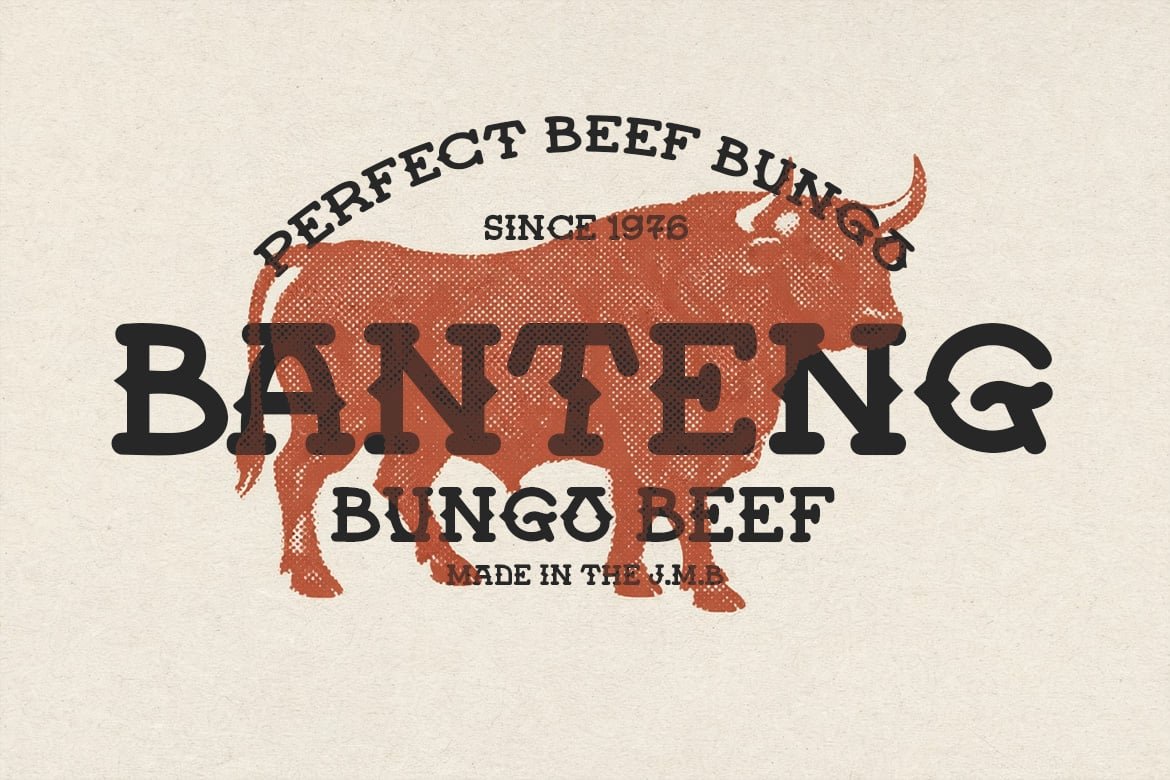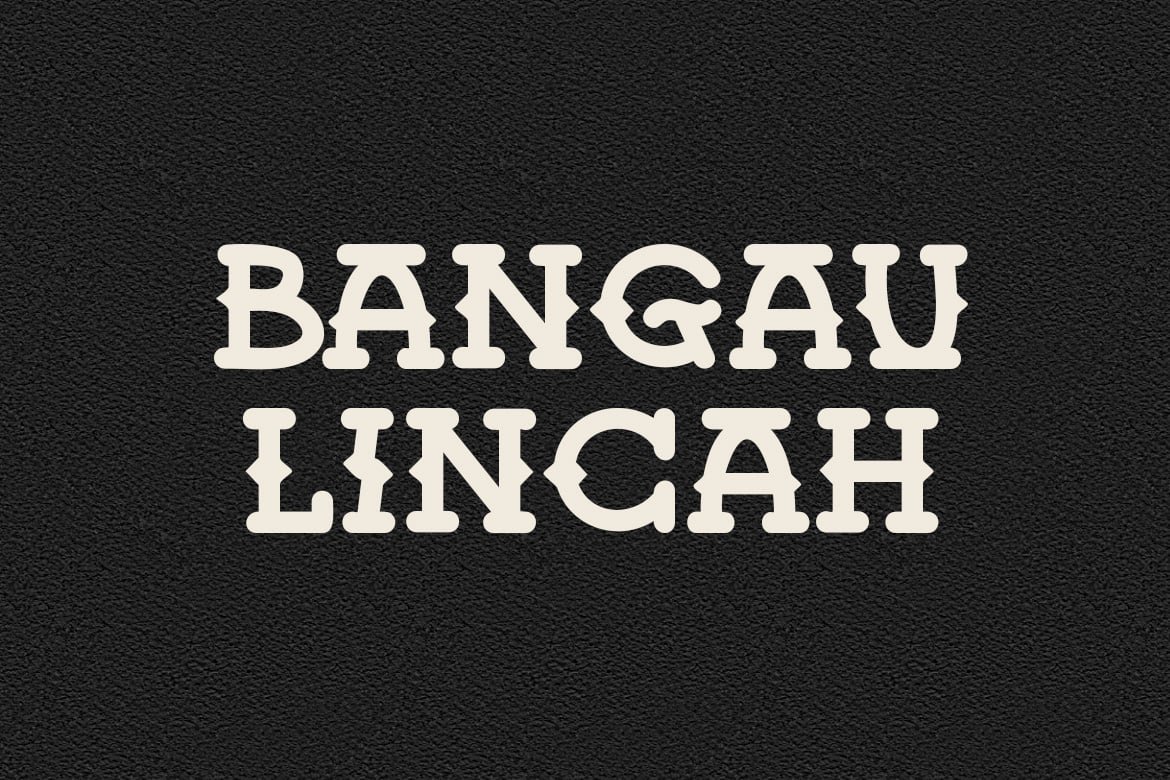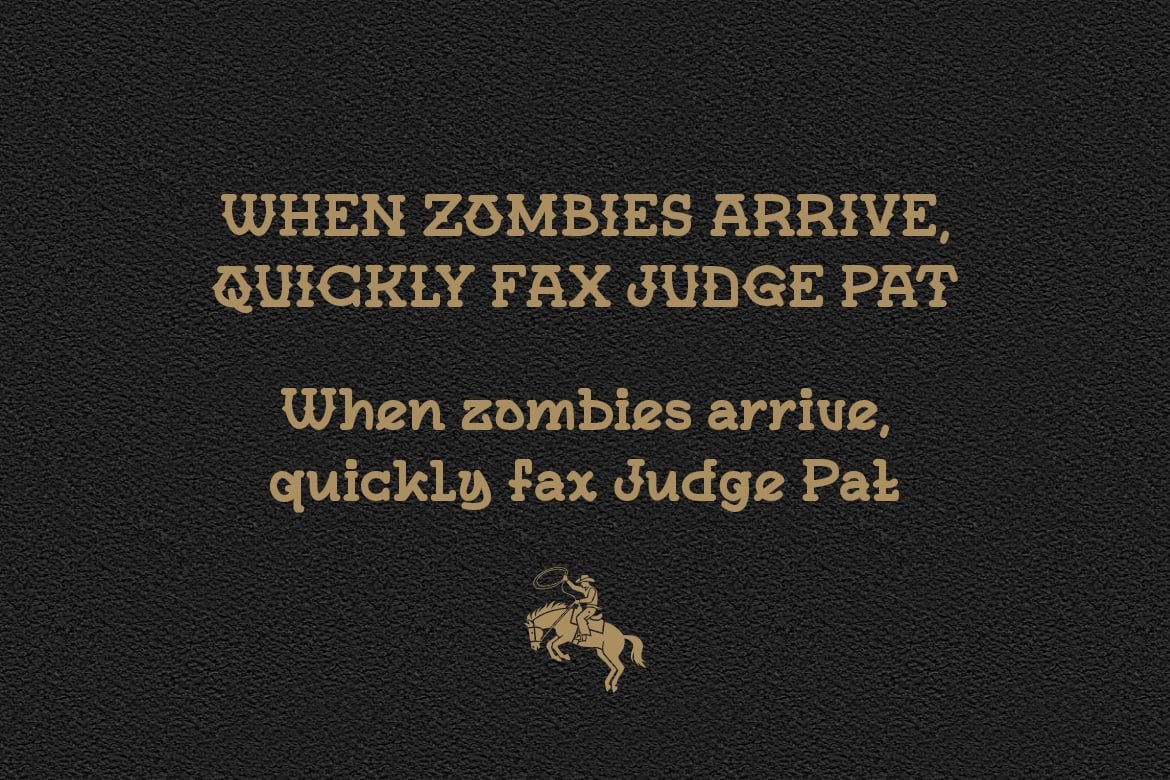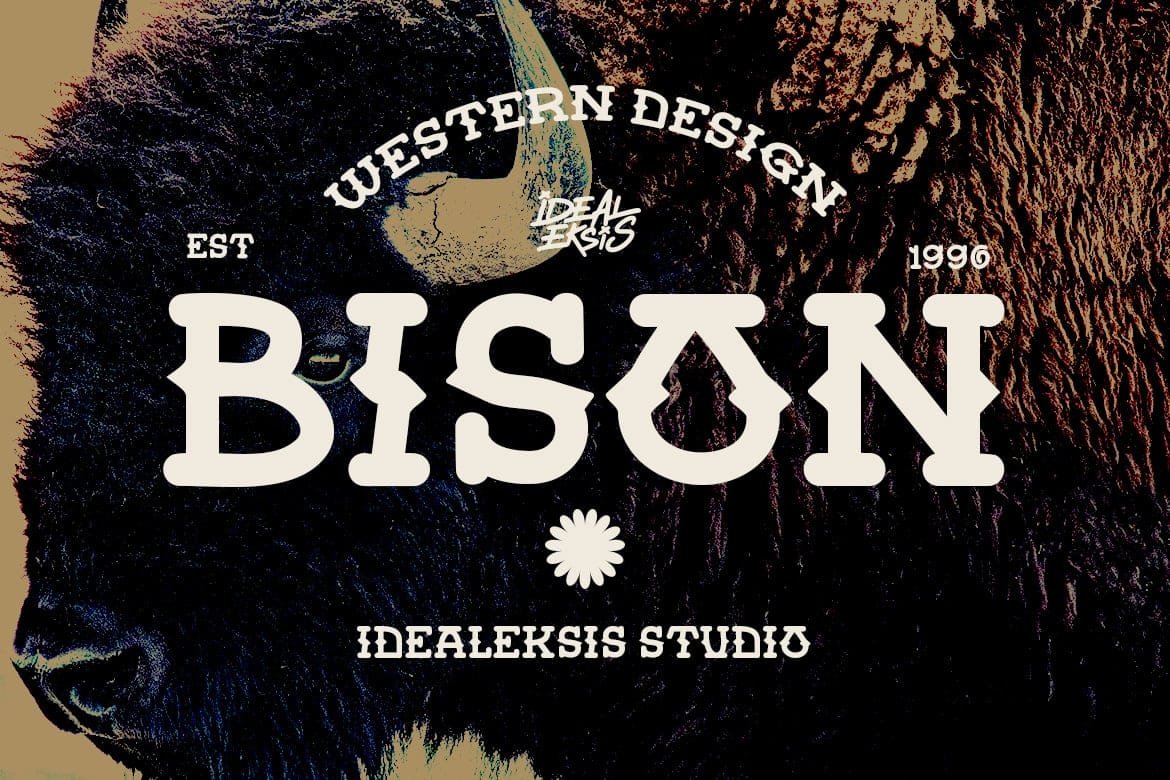
Bungo Western – Western Display Font
This font is a robust slab serif with a distinct frontier aesthetic. It features heavy, uniform strokes and thick, blocky serifs that provide a strong visual foundation. A notable characteristic is the decorative spur located at the midpoint of the vertical stems, reminiscent of classic 19th-century wood type.